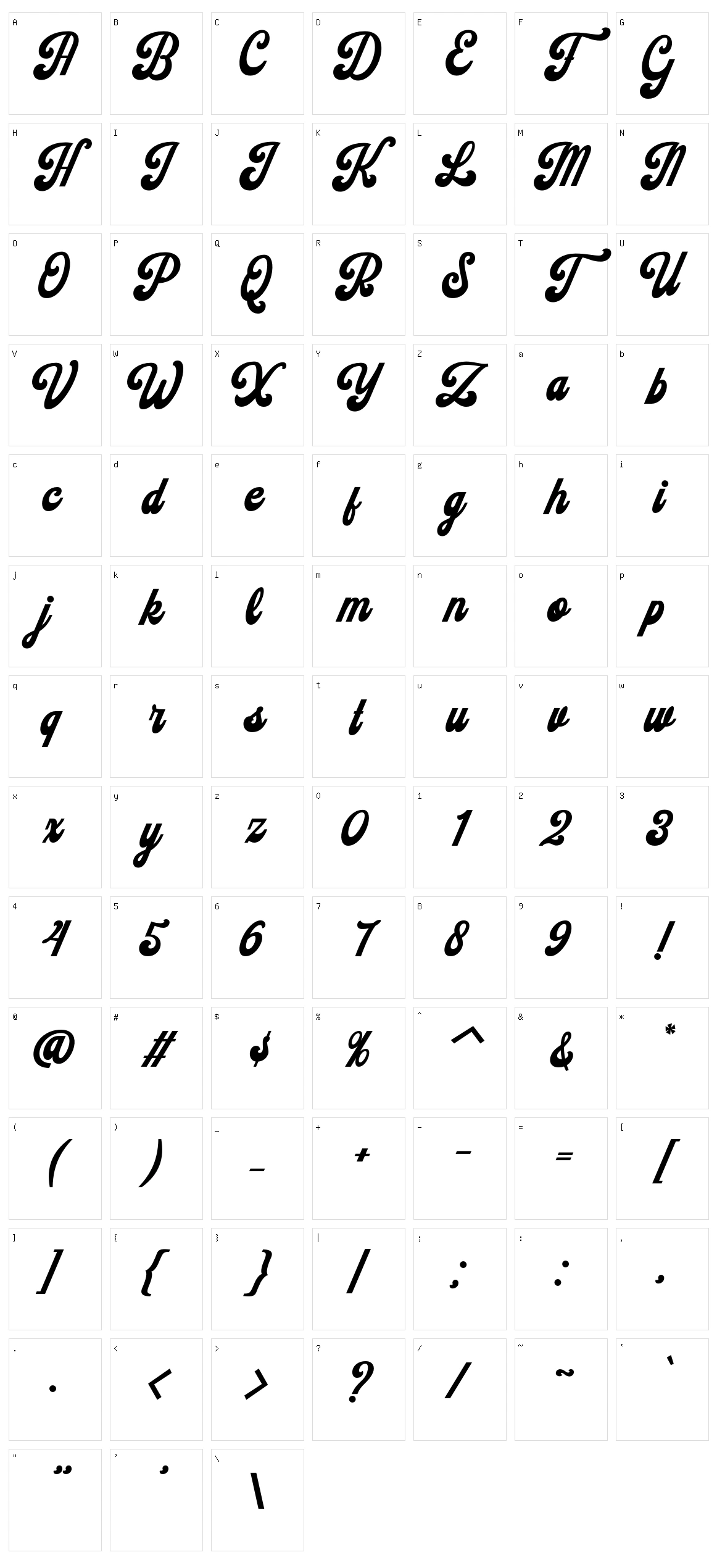
The free font Sundoes is carefully designed by Ahwe Project, showcasing a thoughtful balance of creativity and usability and falls under the Old-School font style. When you download the ZIP file, it contains only 20.4 KB of font files, making it lightweight and quick to download. Please review the license details below to understand permitted usage and distribution rights. If license information is not available, we recommend using this font for personal projects only or contacting the author directly for commercial usage permissions.